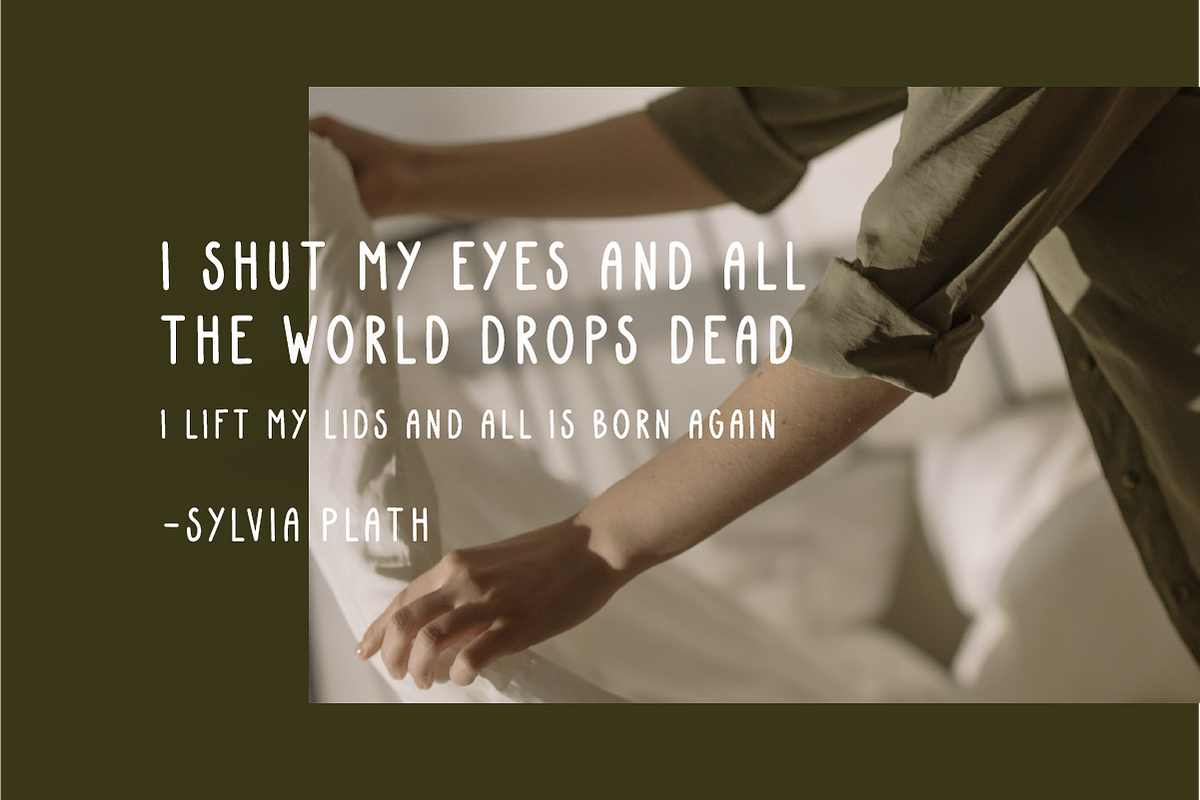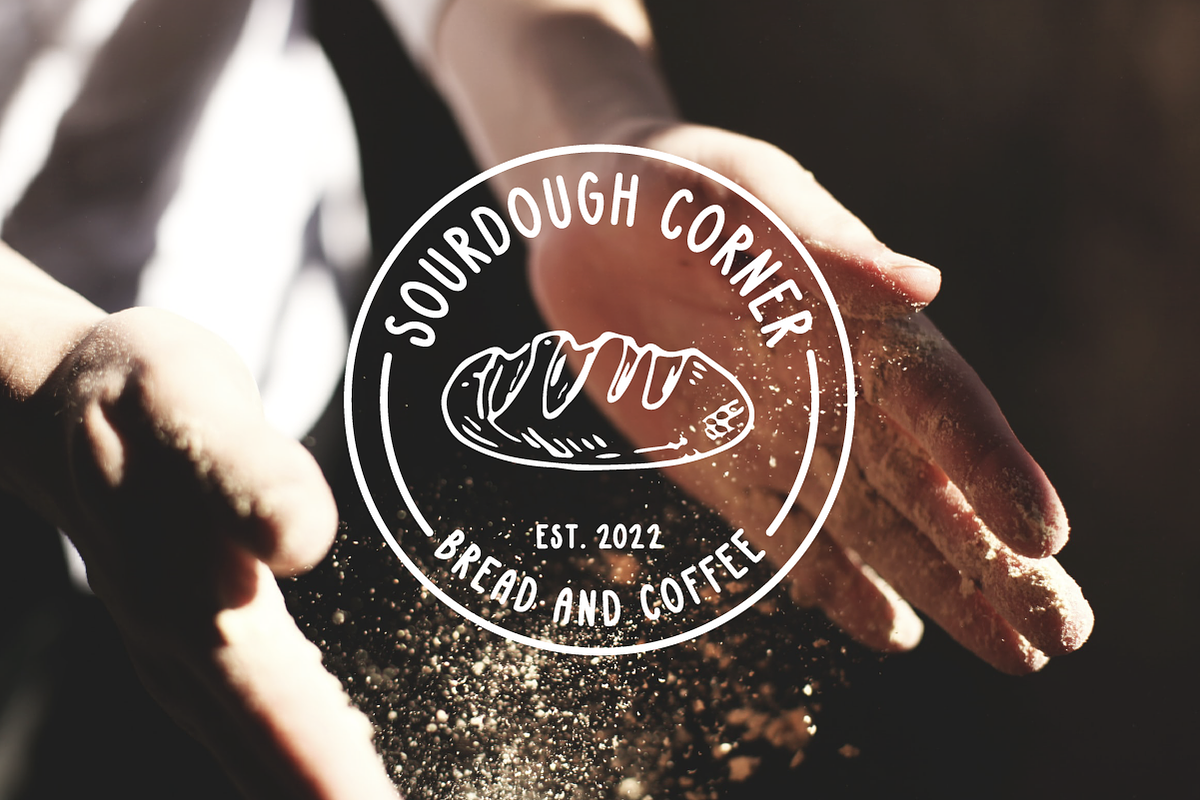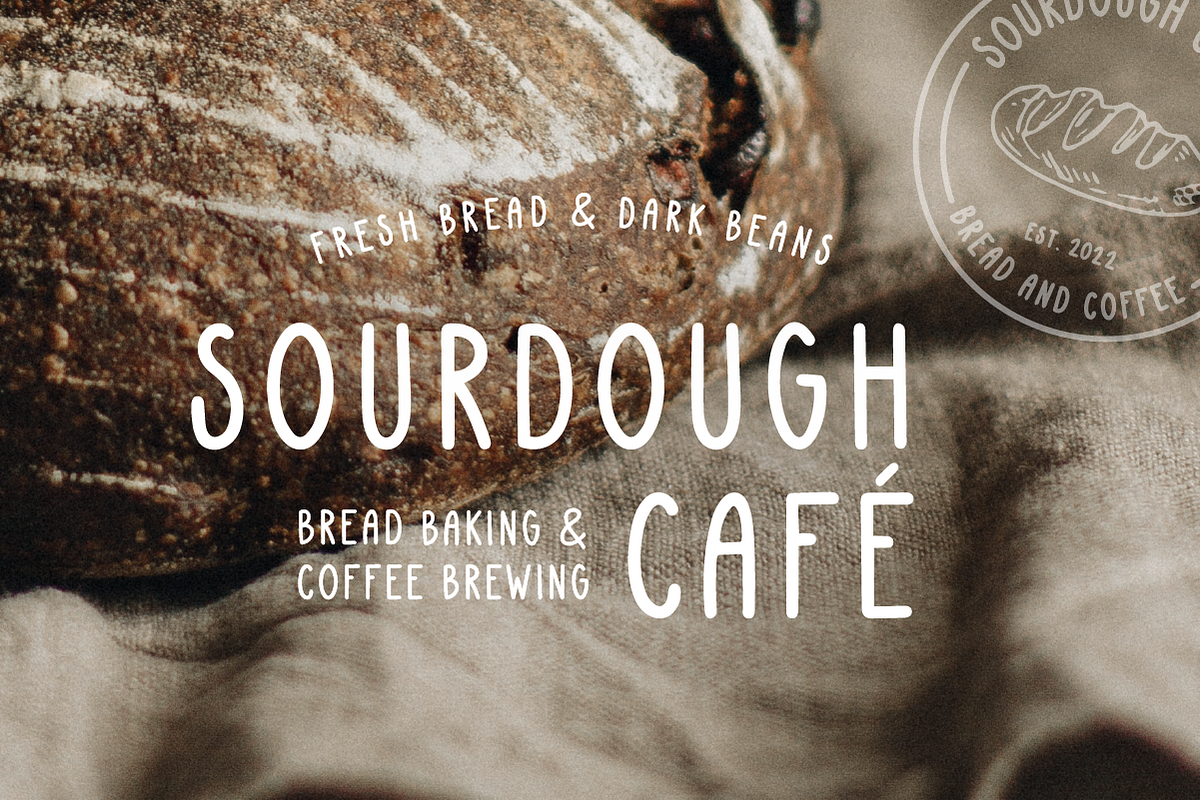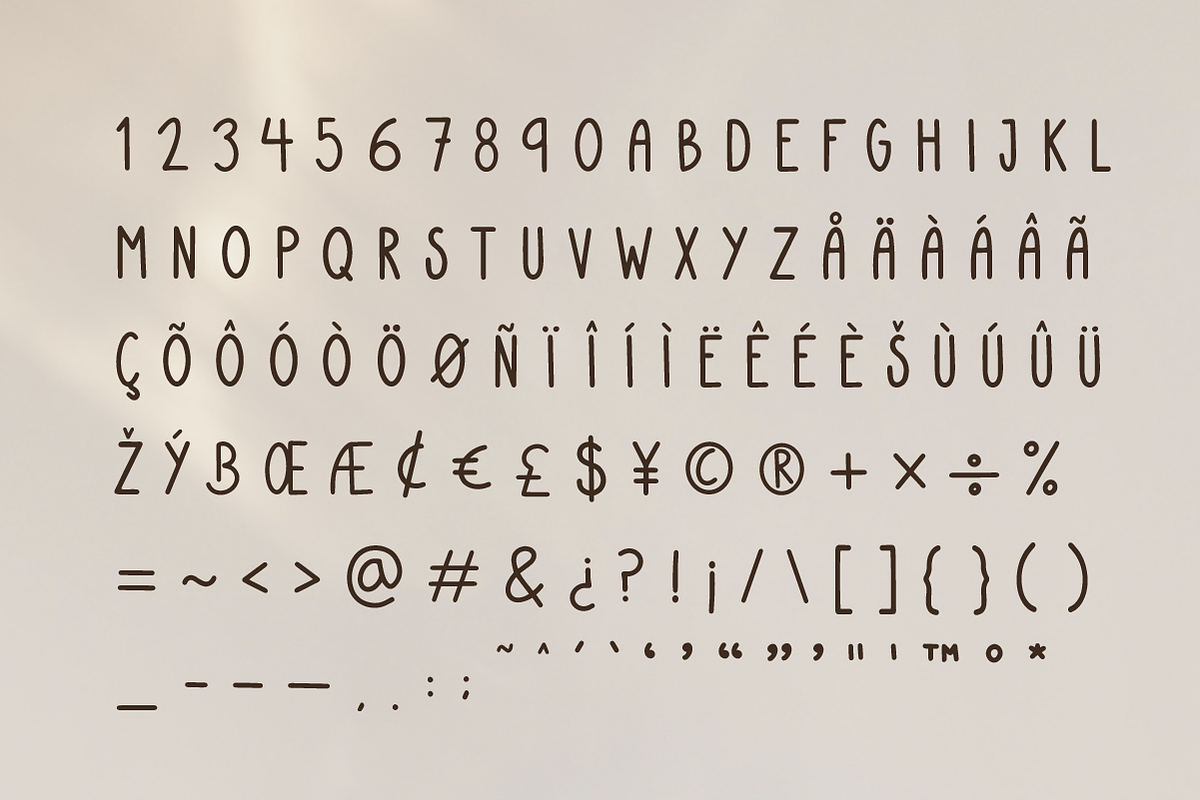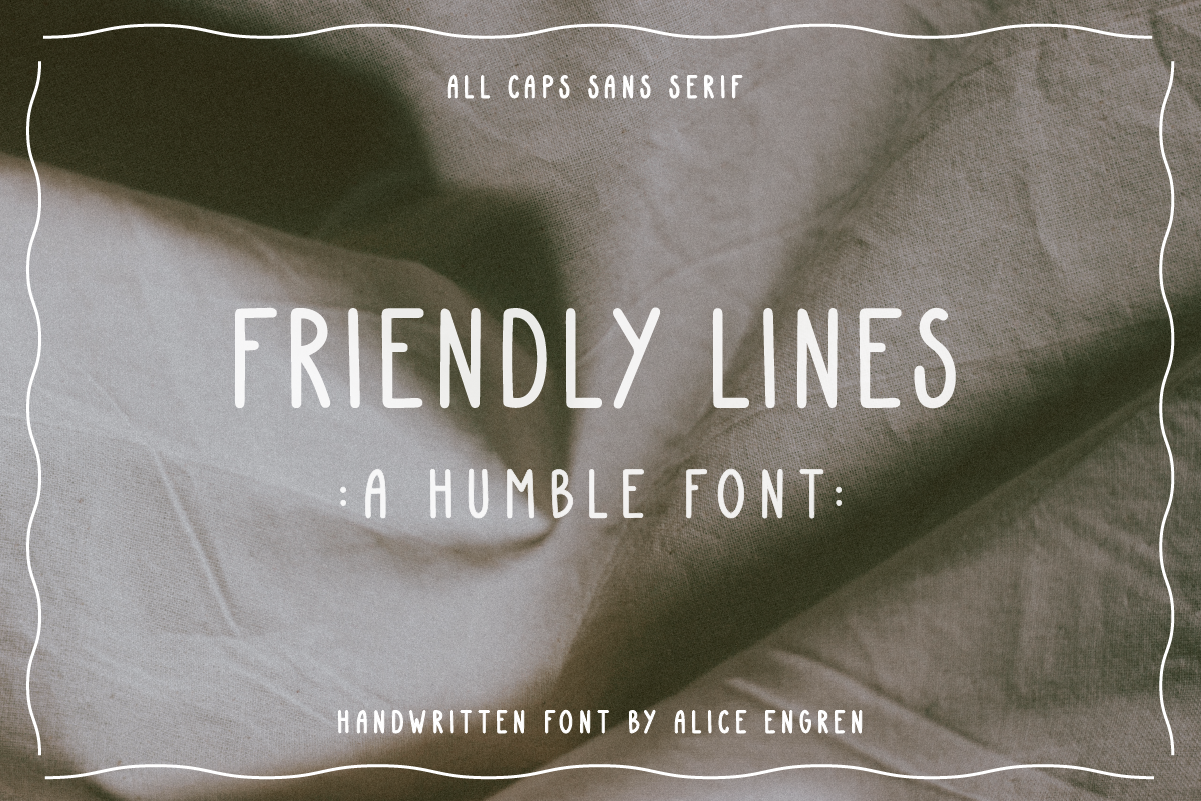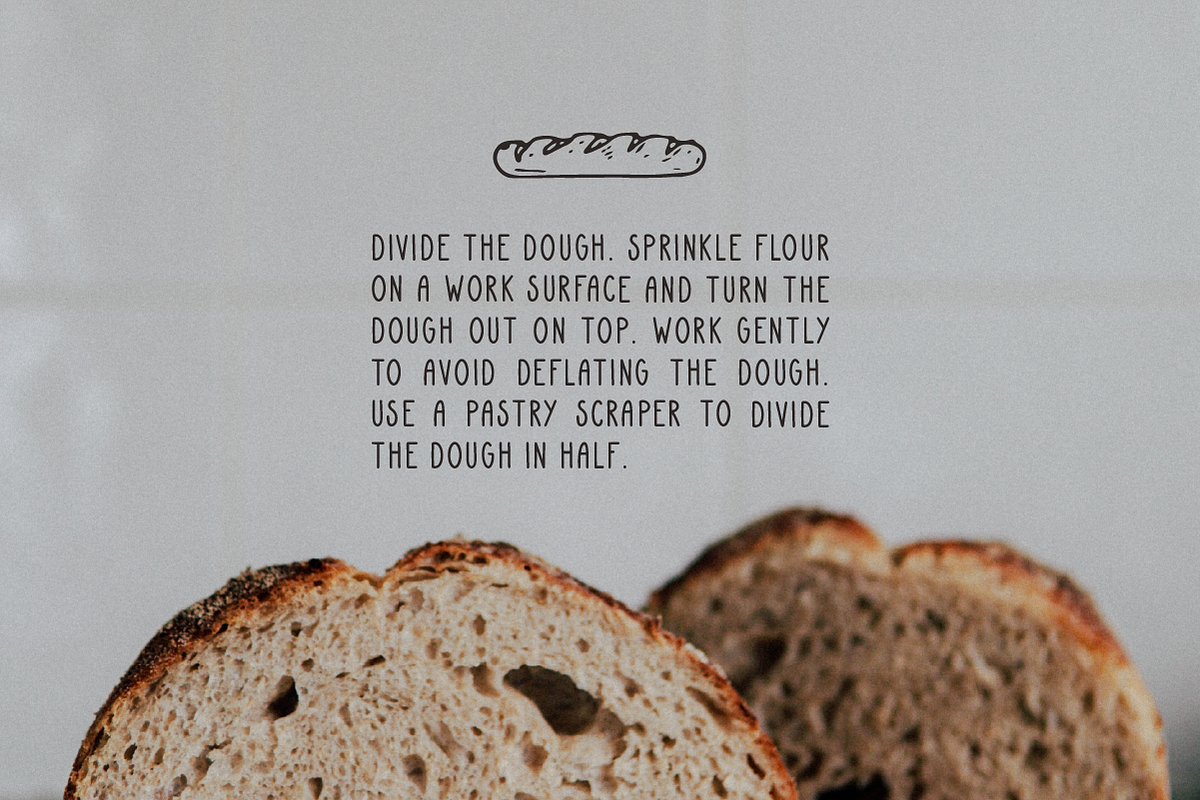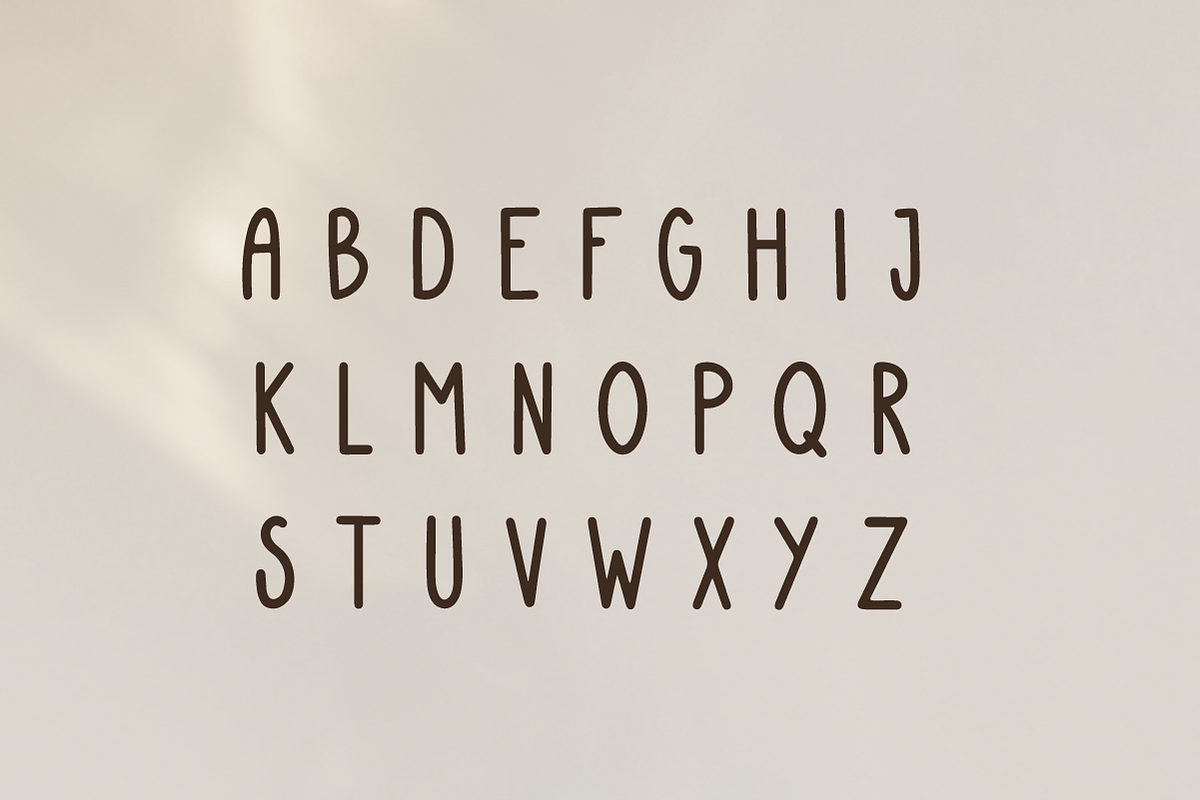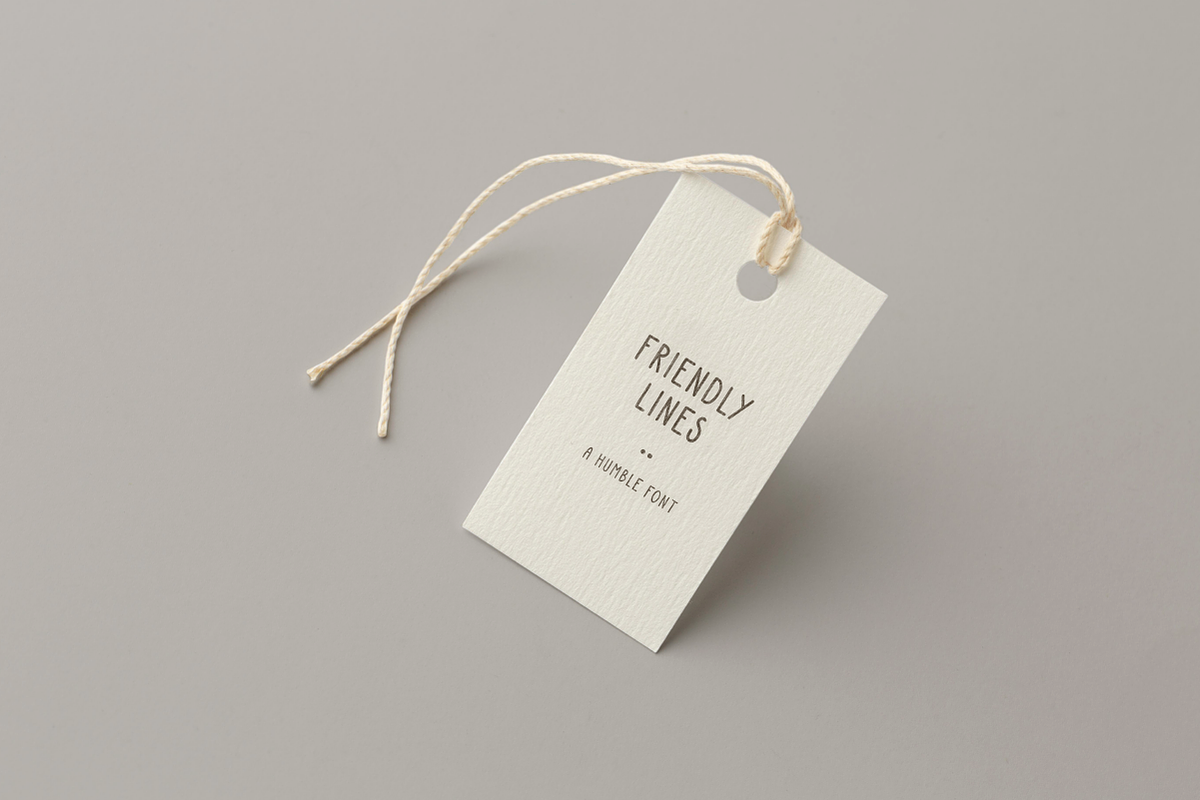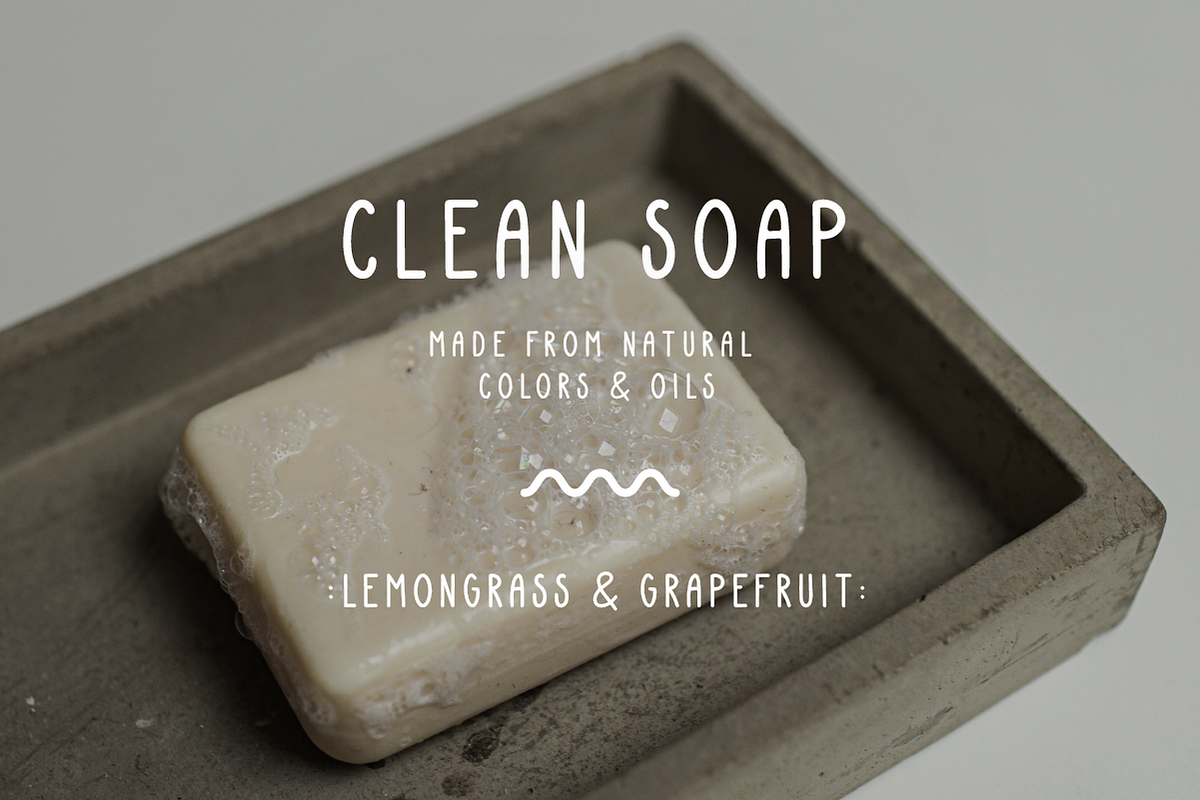
Friendly Lines - Quirky Font
Friendly Lines | Handwritten Quirky Font
A handwritten tall and quirky all-caps sans serif font for a handmade organic vibe. It’s greats for eco packaging, social media quotes, wedding invitation cards or maybe a local bakery.
- Handmade products
- Logos
- Ceramics
- Organic Branding
- Invitation Cards
- Nature weddings
- Instagram quote text
- Eco Beauty Ad Campaign
- All caps font
- Support for almost all Europeans languages
- Numbers and Punctuation